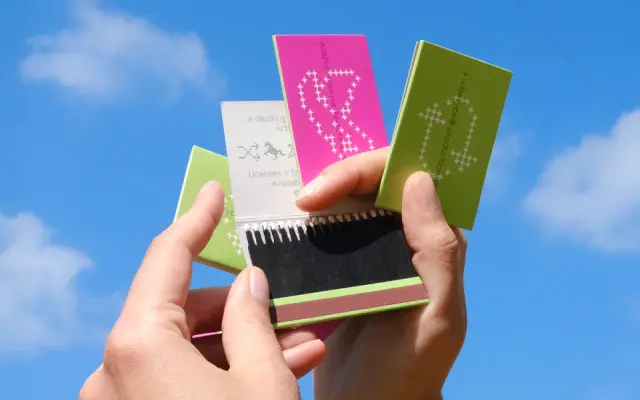
Bobine
A dot matrix typeface by Arthur Calame built on a star-shaped pixel grid, spanning two weights with italics and a taller inline titling cut.
Constructed on a coarse 4-pointed star grid for the regular weight and an 8-pointed star for the bold, Bobine achieves surprising legibility at smaller sizes while reading as distinctly futuristic at large ones. The italic styles are slightly condensed, and both weights include oldstyle figures, extensive diacritics and a broad symbol set. The Titling style stands two units taller than the text cuts, offering a higher effective resolution and two capital form sets: serif uppercase and sans-serif lowercase, plus pictograms and emoji.
Bobine is constructed on a dot matrix grid using star-shaped units, placing it firmly in the pixel/bitmap display genre. The titling variant's inline capitals and the overall low-resolution aesthetic define it as a display typeface rather than a text or body face.